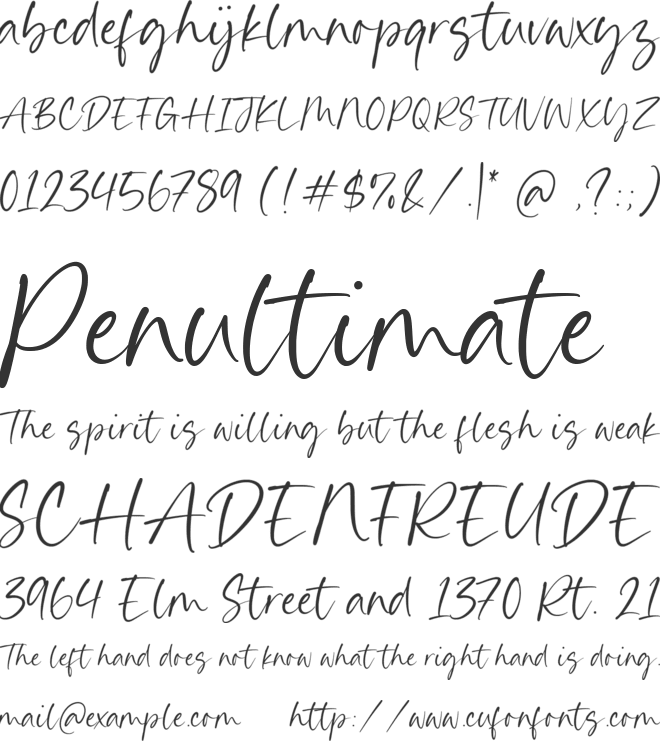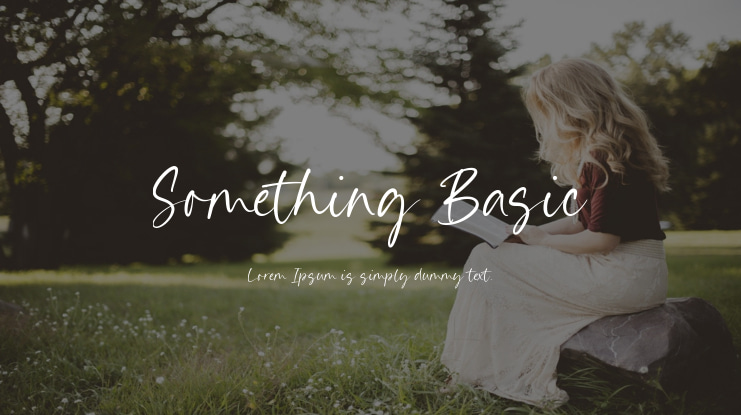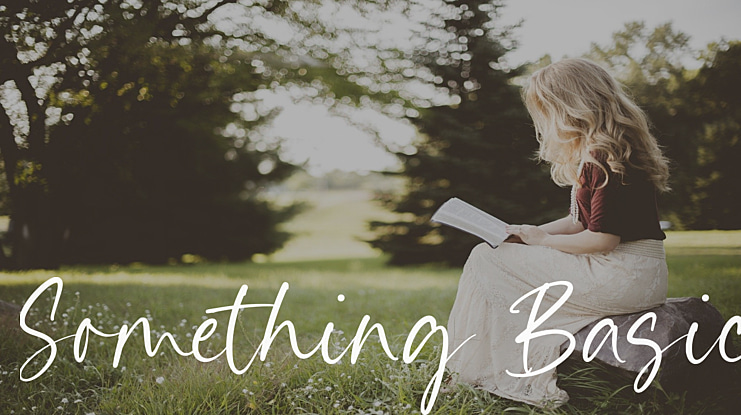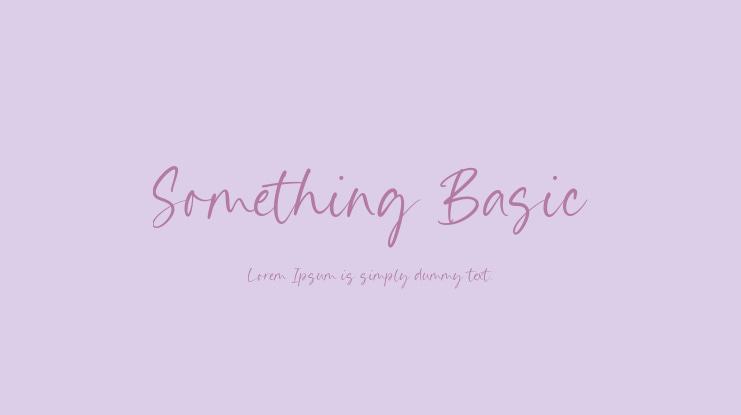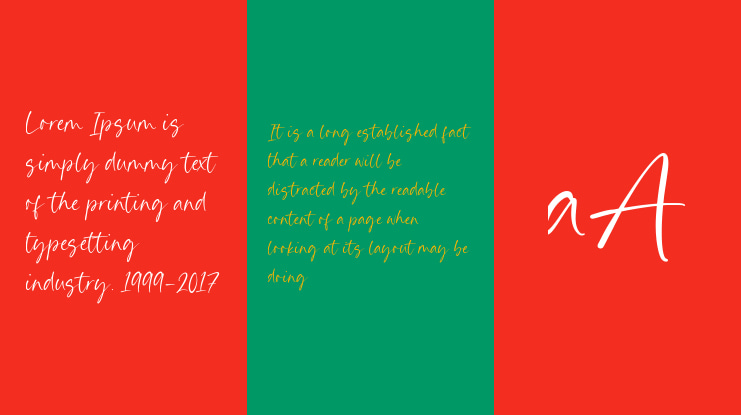
Something Basic Font
Something Basic is a  Handwritten script font that is modern and fresh, and will bring a warm and inviting feel to your business. Take advantage of the fonts and experience the magic for yourself.
Something Basic is perfect for product packaging, branding project, megeenazine, social media, wedding, or just used to express words above the background.
Something Basic Font Features premium :
-Full Set of standard alphabet and punctuation
– Something Basic also multilingual support.